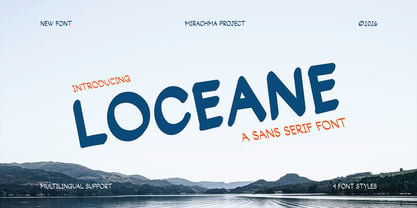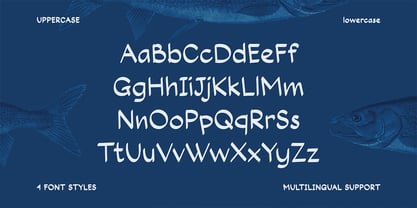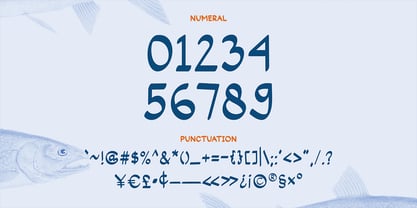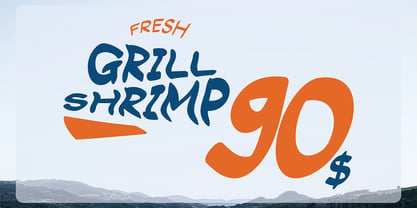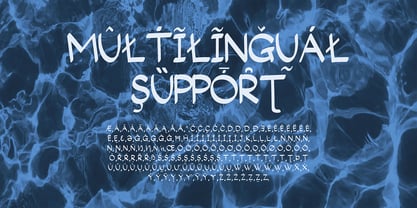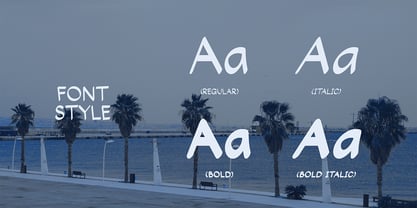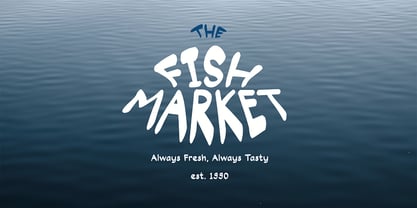
Loceane
by Mirachma
The Loceane Font Family was designed by Mira Rachma and published by Mirachma. Loceane contains 4 styles and family package options. More about this family
LOCEANE is a simple handwritten font. It features an elegant, simple, and modern look. Your logos and designs will appear natural yet sophisticated when using this font. You can get even more creative with this font, because it comes in four styles that you can use individually or mix and match, and it also supports multiple languages. Font Family (Regular, Italic, Bold, Bold Italic) Multilingual Font Support Uppercase & Lowercase Alphabets Numerals & Punctuation
Designers: Mira Rachma
Foundry: Mirachma